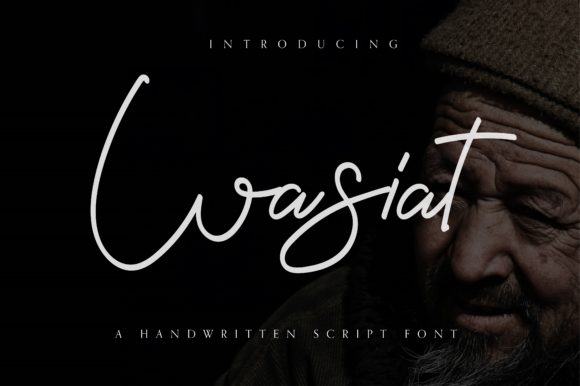
**Introducing Wasiat Font: The Ultimate Expression of Style and Elegance**
Welcome to the world of Wasiat, a captivating script font that embodies the essence of modern grace and timeless charm. Crafted by the esteemed arliyancreative, Wasiat is more than just a font—it's an invitation to unleash your creativity and make a lasting impression.
As you delve into the depths of Wasiat's intricate characters, you'll be mesmerized by its delicate curves, harmonious flow, and impeccable attention to detail. Each letter is a work of art, lovingly designed to evoke a sense of sophistication and charm.
**Step into a Realm of Creative Possibilities**
Wasiat's versatility knows no bounds. Whether you're a budding artist, a seasoned designer, or simply someone who appreciates the beauty of written words, Wasiat empowers you to express yourself in countless ways. From social media posts to invitations, branding materials to personal projects, Wasiat effortlessly elevates every design it graces.
**Feel the Thrill of Originality**
In a world of standardized fonts, Wasiat stands out as a beacon of individuality. Its unique style is crafted to inspire your creativity and set your designs apart from the crowd. With Wasiat, you'll never have to settle for ordinary again—embrace the power of originality and make your mark on the world.
**Immerse Yourself in a Symphony of Style**
Wasiat is a font that speaks to the senses, evoking emotions and capturing the imagination. Its graceful lines dance across the page, creating a visual masterpiece that will leave a lasting impression.
**Indulge in the Art of Self-Expression**
Every stroke of Wasiat's pen is an invitation to express yourself. Whether you're creating a heartfelt letter, designing a stunning website, or simply journaling your thoughts, Wasiat becomes a conduit for your emotions, allowing you to connect with your audience on a deeper level.
**Experience the Joy of Effortless Design**
With Wasiat at your fingertips, the creative process becomes a seamless symphony. Its intuitive design and user-friendly features make it accessible to both seasoned professionals and aspiring artists alike. Simply download Wasiat, let your creativity flow, and watch as your designs blossom into masterpieces.
**Embrace the Power of Wasiat**
Join the legion of creatives who have discovered the transformative power of Wasiat. Unleash your artistic potential, make a statement, and leave an indelible mark on the world. Download Wasiat today and embark on a journey of limitless creativity and self-expression.